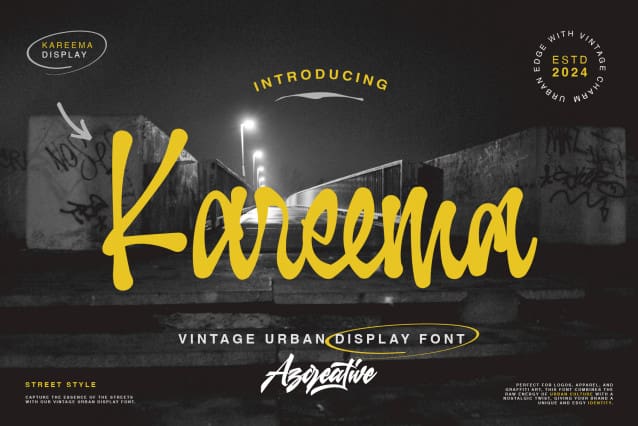
Kareema Script Font
Kareema Script Font, the vintage urban display font that blends classic charm with modern style. Perfect for posters, branding, and more. Flexible, multilingual support with smooth ligatures. Get Kareema now and elevate your designs!